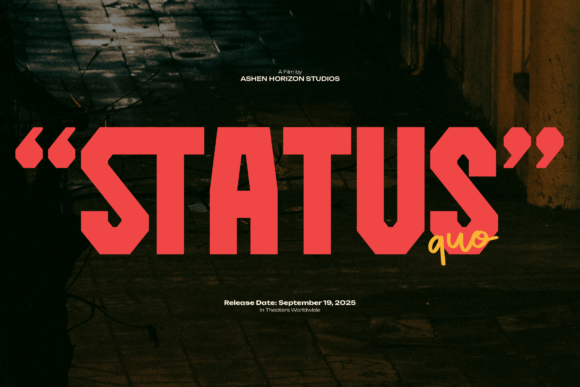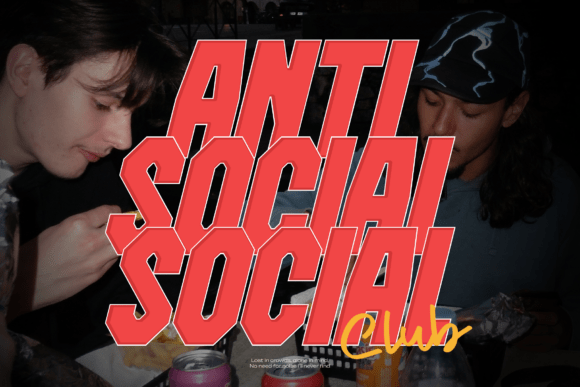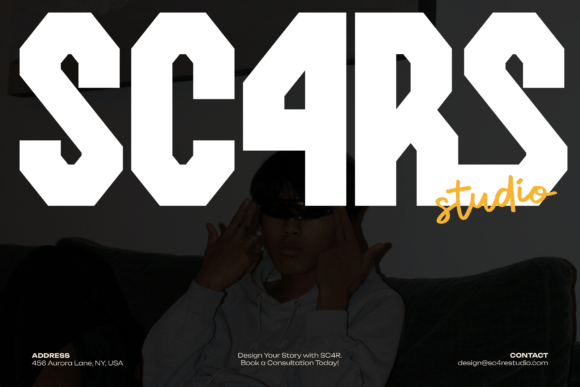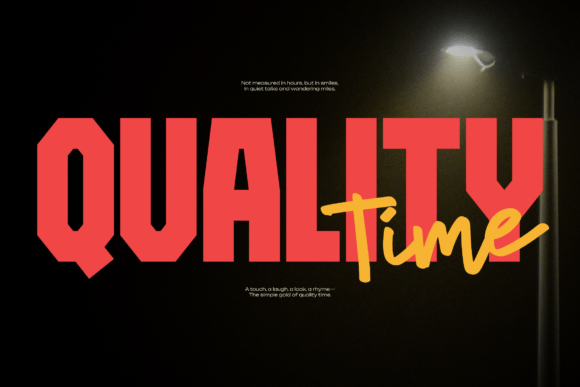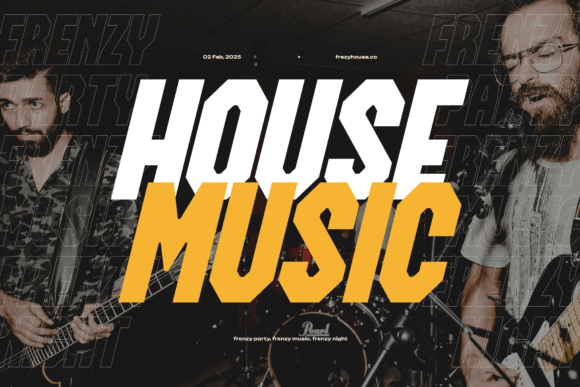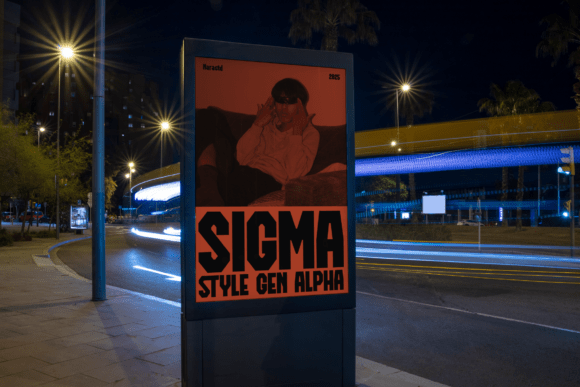
Unleash the Power of Debron Orders Font: A Bold Sans Serif Typeface for Maximum Impact
In the world of typography, a font can make or break a design. When it comes to creating a lasting impression, designers and crafters need a typeface that exudes authority, strength, and style. This is where Debron Orders Font comes in – a powerhouse of a font that is built for maximum impact. In this article, we’ll dive into the features and benefits of Debron Orders, and explore why it’s the perfect choice for headlines, branding, posters, and sports-themed designs.
A Bold and Geometric Construction
Debron Orders is a bold sans serif font that boasts a rigid, geometric construction and sharp angular cuts. This unique design gives the font a brutalist flair and futuristic undertones, making it perfect for designs that require a strong and modern look. The font’s bold and geometric construction conveys authority and strength, making it ideal for headlines, titles, and branding.
Versatility and Style
One of the standout features of Debron Orders is its versatility. The font features over 260 glyphs, including ligatures, alternates, and multilingual support. This means that designers can use Debron Orders for a wide range of projects, from posters and flyers to websites and social media graphics. The font is available in OTF, TTF, and WOFF formats, making it compatible with most design software.
Perfect for Sports-Themed Designs
Debron Orders is particularly well-suited for sports-themed designs. The font’s bold and geometric construction gives it a dynamic and energetic feel, making it perfect for designs that require a strong and motivational look. Whether you’re designing a logo for a sports team or creating a poster for a fitness event, Debron Orders is the perfect choice.
Key Features of Debron Orders Font
- Bold sans serif font: Debron Orders is a bold and modern sans serif font that is perfect for headlines, titles, and branding.
- Rigid, geometric construction: The font’s geometric construction gives it a strong and modern look.
- Sharp angular cuts: The font’s sharp angular cuts add a touch of brutality and futurism to the design.
- Over 260 glyphs: Debron Orders features a wide range of glyphs, including ligatures, alternates, and multilingual support.
Why Choose Debron Orders Font?
So why choose Debron Orders Font for your next design project? Here are just a few reasons:
- Maximum impact: Debron Orders is designed to make a lasting impression. Its bold and geometric construction ensures that your design will stand out from the crowd.
- Versatility: The font’s wide range of glyphs and compatibility with multiple formats make it perfect for a wide range of design projects.
- Authority and strength: Debron Orders conveys authority and strength, making it perfect for designs that require a strong and modern look.
In conclusion, Debron Orders Font is a powerhouse of a typeface that is built for maximum impact. Its bold sans serif design, rigid geometric construction, and sharp angular cuts make it perfect for headlines, branding, posters, and sports-themed designs. With over 260 glyphs and compatibility with multiple formats, Debron Orders delivers both style and versatility. Whether you’re a designer or crafter, Debron Orders is the perfect choice for your next design project.